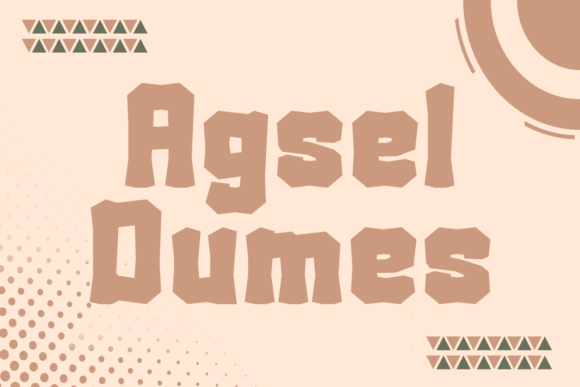
Getting into the Halloween Spirit with Agsel Dumes Font
As the leaves start to change colors and the nights grow darker, many of us can’t help but feel a thrill of excitement for the spookiest time of the year: Halloween. For designers, this means it’s time to break out the bold, creepy fonts that add an extra layer of mystery and excitement to our creations. And if you’re looking for a font that embodies the spirit of Halloween, you’re in luck.
Enter the Agsel Dumes Font, a bold and hauntingly unique typeface that’s sure to give your Halloween-themed projects a spine-chilling touch. With its creepy curves and one-of-a-kind characters, this font is perfect for posters, invitations, and spooky decorations that are sure to impress. Whether you’re a seasoned designer or just starting out, the Agsel Dumes Font is a valuable addition to your toolkit.
Agsel Dumes Font Key Features
- Font Family: Agsel Dumes Font is a unique, modern sans-serif font family.
- Unique Characteristics: Features a distinctive blend of modern and traditional elements, making it suitable for a wide range of design applications.
Agsel Dumes Font Review
After diving into the Agsel Dumes Font, I have mixed feelings about its overall quality. On the one hand, the font’s ✨ uniqueness and ✨ elegance caught my attention. It has a distinctive touch that can add a creative twist to various designs. The font’s ✨ legibility and ✨ readability are also noteworthy, making it suitable for both digital and print media.
However, I found some limitations that prevent it from being a top-notch font. ⚠️ One major concern is its limited character set, which may cause issues for designers who require a wide range of characters. Additionally, the font’s ⚠️ kerning could be improved, especially for certain letter combinations. This may result in an uneven visual experience, especially in longer text passages.
Overall, the Agsel Dumes Font is a decent choice for designers who want to add a touch of uniqueness to their projects. While it has its strengths, its limitations hold it back from being a go-to font. I would recommend it for specific projects where its distinctive style can shine, but it’s not a font I’d use for every design.
- Unique and elegant design
- Good legibility and readability
- Suitable for digital and print media
- Limited character set
- Kerning issues
Agsel Dumes Font is ideal for creating unique and eye-catching designs, such as:
- Editorials and publications
Remember to experiment with different font sizes, styles, and combinations to get the most out of Agsel Dumes Font.